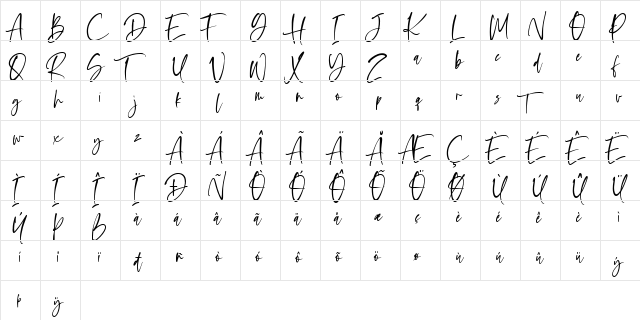
Oliver Notes Regular
| Designer | Sronstudio |
Design Context for Oliver Notes Typeface
Oliver Notes is a composed and adaptable typeface that performs quietly and consistently across a wide range of design contexts.